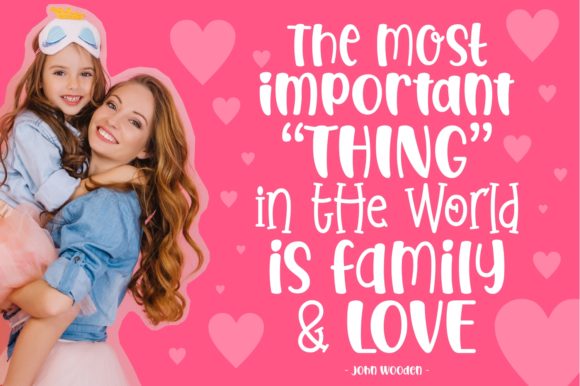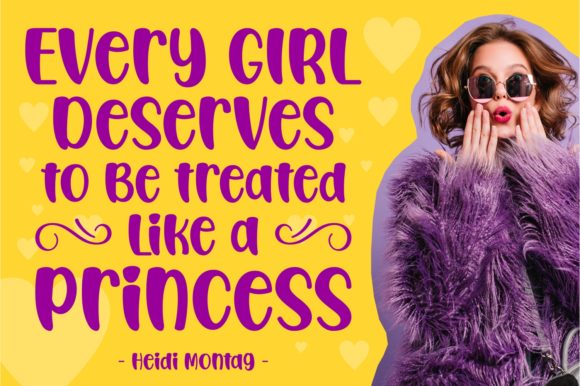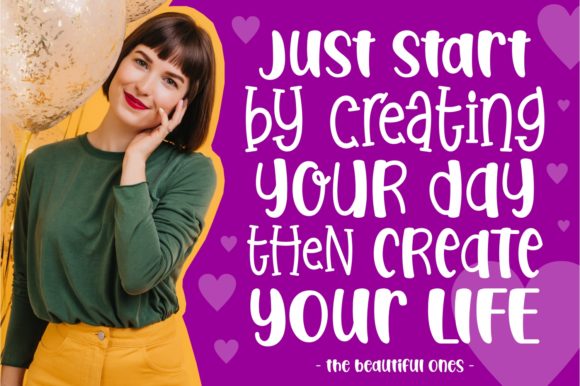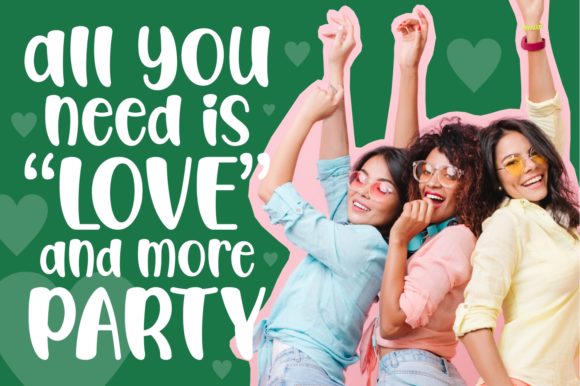
Design Inspiration Strikes: The Allure of Adorable Princess Font
You know that magical moment when creativity strikes and you envision the perfect design? It’s like a spark of inspiration that sets your imagination ablaze. For many designers, this feeling is what drives them to push the boundaries of their craft. And when it comes to creating enchanting designs, one font stands out from the rest: Adorable Princess Font.
This playful display font is a dream come true for designers who want to add a touch of whimsy and romance to their projects. With its charming and radiant style, Adorable Princess Font is perfect for creating stunning wedding invitations, beautiful stationery art, and eye-catching social media posts. Whether you’re a seasoned pro or a budding designer, this font is a valuable addition to your toolkit.
Adorable Princess Font Key Features
- Font Family: Adorable Princess is a sans-serif font family, designed to resemble a playful and whimsical princess theme.
- Unique Characteristics: The font features decorative elements, such as flourishes and ornaments, that add a touch of elegance and sophistication to any design.
Adorable Princess Font Review
As a designer, I was excited to dive into the world of Adorable Princess Font and see what it had to offer. Here’s my honest review.
- Unique and playful design: Adorable Princess Font brings a whimsical touch to any design project, making it perfect for children’s books, nursery decor, or other projects that require a touch of magic.
- High-resolution and clear: The font is well-designed and easy to read, even at small sizes.
- Perfect for hand-lettering and typography: The font’s playful and cursive nature makes it a great choice for hand-lettering and typography projects.
- Limited character set: The font is not suitable for large blocks of text or professional documentation due to its limited character set.
- Not suitable for formal designs: The font’s playful nature may not be suitable for formal designs or professional projects.
Overall, Adorable Princess Font is a delightful addition to any designer’s toolkit. While it has its limitations, it’s perfect for projects that require a touch of whimsy and playfulness. I would recommend it for children’s projects, nursery decor, or other creative pursuits.
Tip: Experiment with different font sizes and colors to enhance the whimsical effect of the font.
Tip: Use the font in combination with other whimsical elements, such as floral patterns and watercolor textures, to create a cohesive design.
Tip: Use the font to add a touch of elegance and sophistication to your presentation or document.
The Adorable Princess Font is perfect for:
- Illustrated books and magazines
- Personalized gifts and stationery